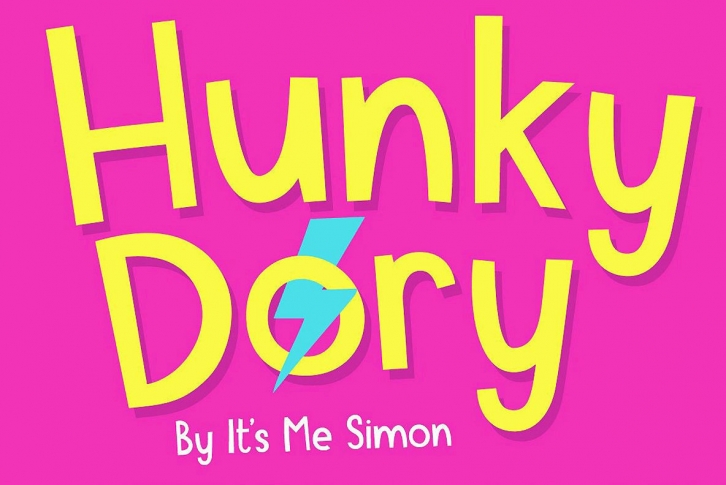
Meet Hunky Dory, a bold display type with a bright and bubbly personality. Named after the album by David Bowie—yes I am obsessed with Bowie.
Its childlike simplicity gives it a sense of innocence that will really light up your designs.
With its simple lines and curves its great for packaging, branding, headlines and logos. Although it's a display font it also looks very legible in smaller sizes too.